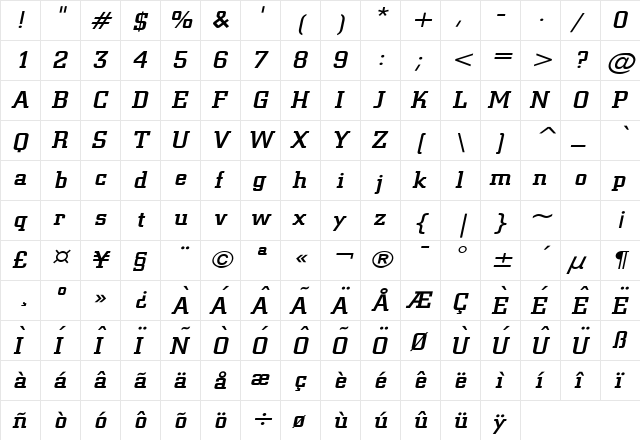
Geo 957 Wide Italic Font Preview
Geo 957 Wide Italic
Design Context for Geo 957 Wide Typeface
Geo 957 Wide takes a measured approach to typography — its balanced proportions and neutral character make it a reliable workhorse for both digital and print work. The dynamic lean of this cut emphasises speed and emphasis in any layout.
Pro Tip: Try Geo 957 Wide for annotation and caption copy alongside an upright companion — the contrast in angle creates a dynamic but ordered typographic system.